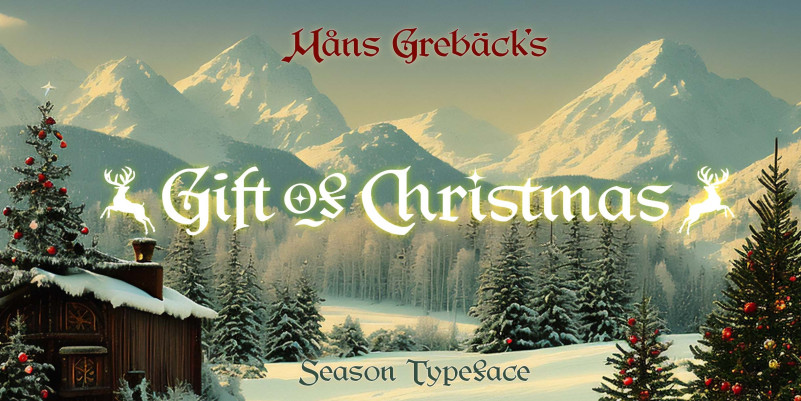
Gift Of Christmas Font
Gift Of Christmas Font, It can easily be matched to an incredibly large set of projects, so add it to your creative ideas and notice how it makes them stand out!
Use the different parenthesis symbols ( ) { } [ ] to make reindeers.
Example: [ Feliz Navidad ]